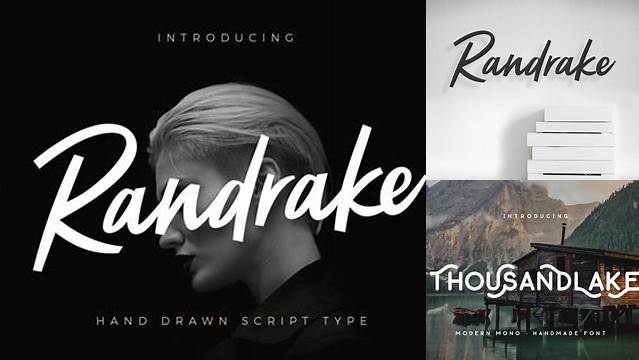
Hey guys! Ever stumbled upon a font that just clicks? Well, that's Randrake for many designers and creatives out there. It's got this unique vibe that makes it super versatile for a bunch of different projects. So, let's dive into everything Randrake, from where to snag it for free to how to make the most of it. Let's get started!
Understanding the Randrake Font
Randrake isn't just another typeface; it's a carefully crafted design that balances elegance with readability. Understanding its origins and unique characteristics can help you appreciate its versatility. Knowing the design principles behind Randrake allows you to use it effectively in various contexts, ensuring your projects stand out. Understanding Randrake font means recognizing its strengths and knowing when to deploy it for maximum impact. Whether you’re designing a logo or crafting body text, understanding the nuances of Randrake will elevate your work. In short, Randrake offers a blend of classic and contemporary elements, making it a go-to choice for designers seeking something unique yet versatile. This font family doesn’t just offer letters; it provides a visual language that can enhance the overall message of your design. Recognizing these elements is key to using Randrake effectively. So next time you’re looking for that perfect font, remember that understanding Randrake font can be the secret ingredient that makes your design truly shine. It's like having a secret weapon in your design arsenal!
Using Randrake Font in Graphic Design
So, you've got Randrake font installed and ready to roll. Now, let's talk about how to actually use it in your graphic design projects. Randrake is super versatile, but like any font, it has its strengths. It works great for headings, logos, and anything that needs a touch of elegance. Try pairing it with a simpler sans-serif font for body text to create a balanced look. Experiment with different weights and styles to see what works best for your design. Pay attention to kerning and leading to ensure readability and visual appeal. Overusing Randrake can make your design look cluttered, so use it strategically. Think of Randrake font as a special ingredient – a little goes a long way. By using it thoughtfully, you can create designs that are both beautiful and effective. Whether you're designing a poster, a website, or a business card, Randrake can help you make a statement. So go ahead, get creative, and see what you can create with this amazing font!
Randrake Font for Website Design
Using Randrake font for website design can seriously elevate your site's aesthetic. Imagine your headlines popping with that unique Randrake flair! But, before you get too carried away, let's talk about best practices. First off, make sure the font is web-optimized. Nobody wants a slow-loading website because of a heavy font file. Use font formats like WOFF or WOFF2, which are designed for the web. Secondly, think about readability. While Randrake looks fantastic, it might not be the best choice for large blocks of body text. Use it sparingly for headings, titles, and accents. Test how the font looks on different devices and browsers to ensure consistency. Consider using CSS to control the font's appearance, such as letter spacing and line height. Choosing the right font size is crucial for a comfortable reading experience. By following these tips, you can make Randrake font a standout feature of your website without sacrificing performance or usability. So go ahead, give your website a touch of elegance with Randrake, and watch your visitors be impressed!
Pairing Randrake Font with Other Fonts
One of the keys to making Randrake font truly shine is pairing it with the right complementary fonts. Think of it like pairing wine with food – you want flavors that enhance each other. Since Randrake often has a distinctive personality, it usually works well with more neutral fonts. A classic sans-serif like Open Sans or Lato can provide a clean, readable body text that doesn't compete with Randrake's flair. For a more modern look, try pairing Randrake with Montserrat or Roboto. When choosing a pairing font, consider the overall tone of your design. If you're aiming for elegance, stick with sophisticated sans-serifs. If you want something more playful, try a slightly more quirky font. Experiment with different combinations to see what feels right for your project. Using font pairing websites like FontPair can give you some great ideas. Ultimately, the goal is to create a harmonious balance between Randrake font and its companion, resulting in a visually appealing and readable design. So have fun experimenting and discovering the perfect match!
Randrake Font in Logo Design
Using Randrake font in logo design can give your brand a unique and memorable identity. A logo is often the first thing people see, so you want it to make a strong impression. Randrake's distinctive style can help your logo stand out from the competition. However, it's important to use it strategically. Consider your brand's personality and make sure Randrake aligns with it. If your brand is elegant, sophisticated, or creative, Randrake can be a great choice. Avoid using Randrake if your brand is more traditional or serious, as it might not convey the right message. Keep the logo simple and easy to read, even at small sizes. Experiment with different weights and styles of Randrake font to find the perfect fit. Pay attention to the kerning and spacing to ensure the logo looks balanced and professional. Test the logo in different contexts, such as on your website, business cards, and social media profiles. By using Randrake thoughtfully, you can create a logo that truly represents your brand and captures attention.
Using Randrake Font for Print Materials
When it comes to print materials, Randrake font can add a touch of elegance and sophistication to your designs. Whether you're creating business cards, brochures, or posters, Randrake can help you make a lasting impression. Ensure the font is legible in print by choosing an appropriate size and weight. Test your designs by printing out a sample to see how the font looks in reality. Pay attention to the color contrast between the text and the background to ensure readability. Consider the paper stock you're using, as some papers may affect how the font appears. For larger print projects, work with a professional printer to ensure the best possible results. Using Randrake font for print materials can elevate your brand's image and create a polished, professional look. So go ahead, let Randrake help you make a statement in the physical world.
Randrake Font: A Comprehensive Guide to Free Download and Usage – Conclusion
So, there you have it! A comprehensive guide to Randrake font, covering everything from finding free downloads to using it effectively in your design projects. Randrake is a versatile and elegant font that can add a touch of sophistication to your work. By following the tips and best practices outlined in this guide, you can unlock the full potential of Randrake font and create designs that are both beautiful and functional. Remember to always check the font license and use the font responsibly and ethically. Happy designing!